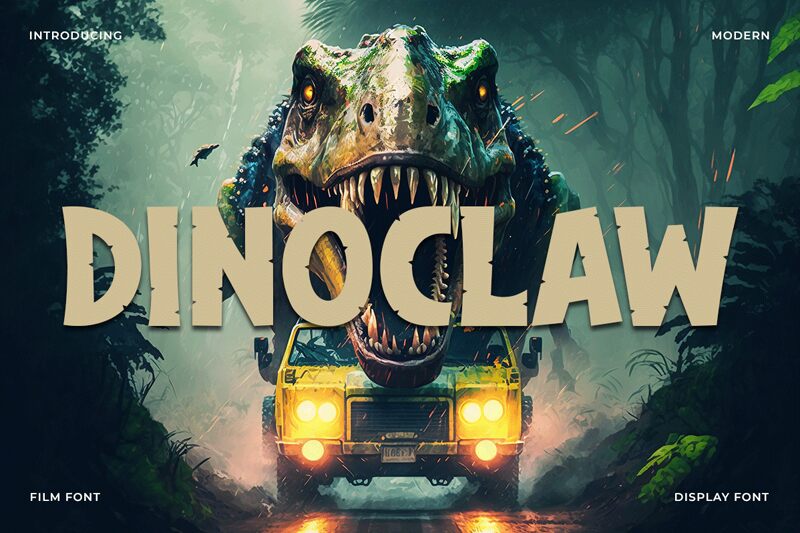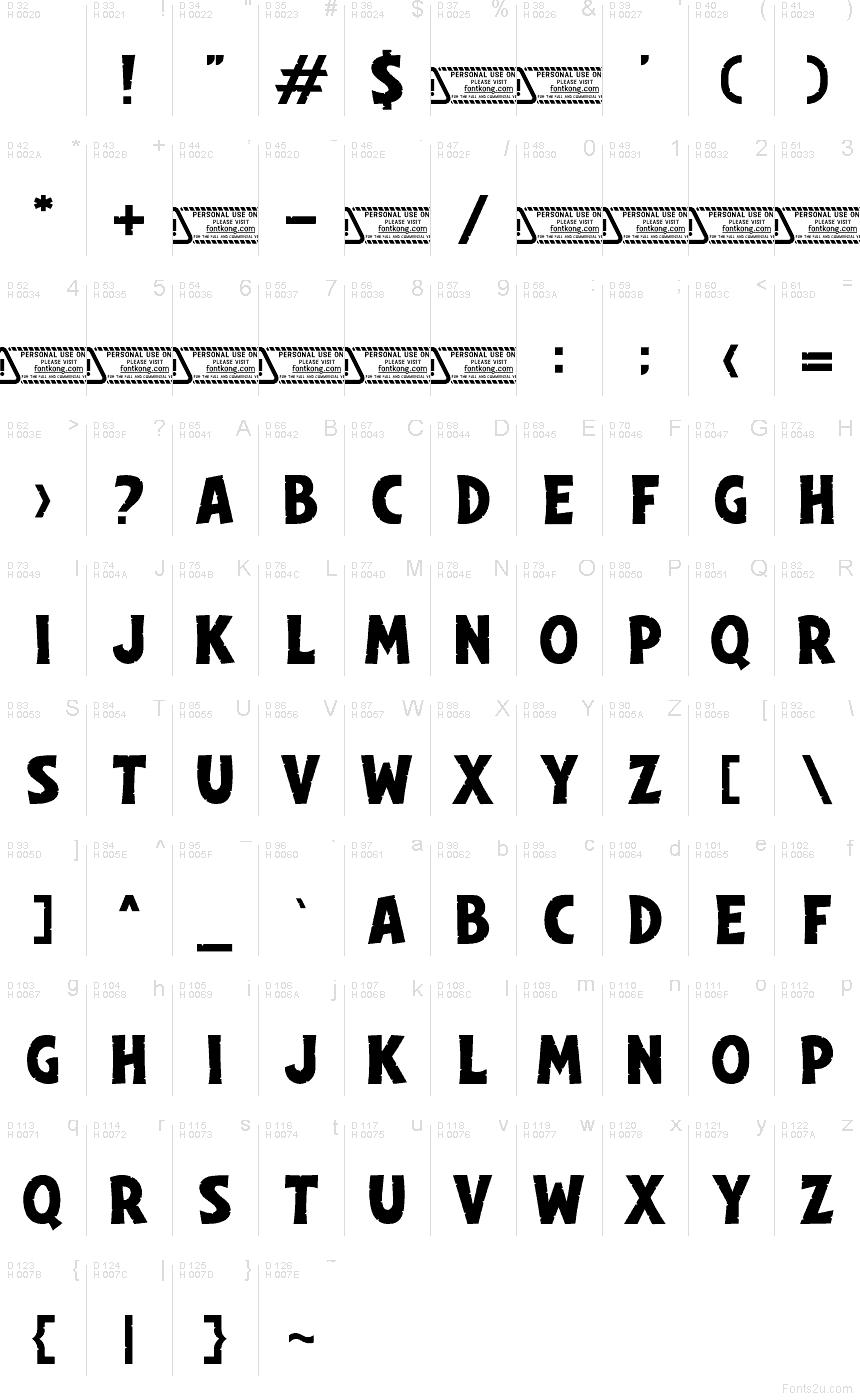
Dinoclaw font by Kong Font is a free cartoon display font with rounded block forms and sharp claw-like cuts worked into the edges. The letters feel cut and bitten rather than smooth, which gives the design a rough creature-themed personality without losing its bold, poster-like shape.
Dinoclaw is a free font that fits game titles, kids' posters, toy packaging, comic covers, and dinosaur-themed logos. Its jagged inner cuts and chunky outlines make it useful anywhere a title needs a creature accent or a playful monster edge.